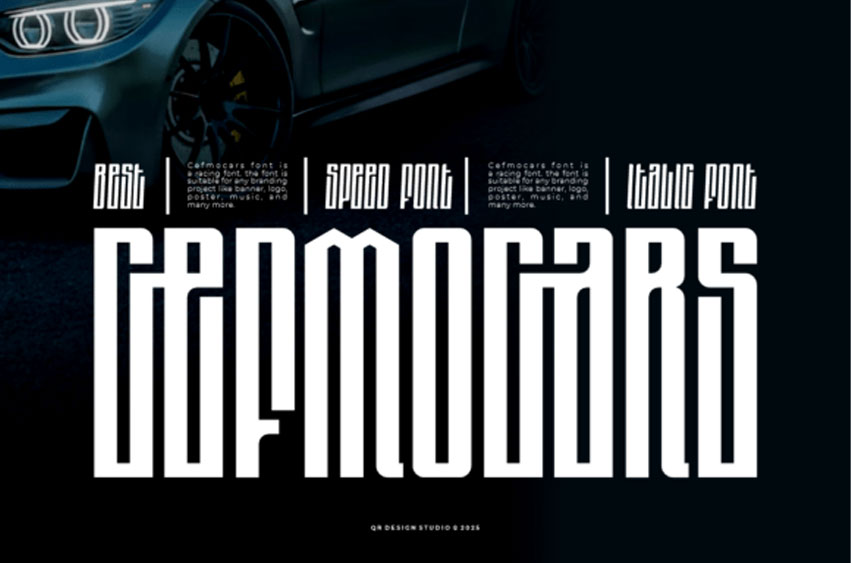
Cefmocars Font is a striking speed-themed display font with ultra-tall, compressed letterforms and a bold, futuristic presence.
Designed for automotive branding, racing posters, tech covers, or music visuals, this font delivers maximum impact with minimal space.